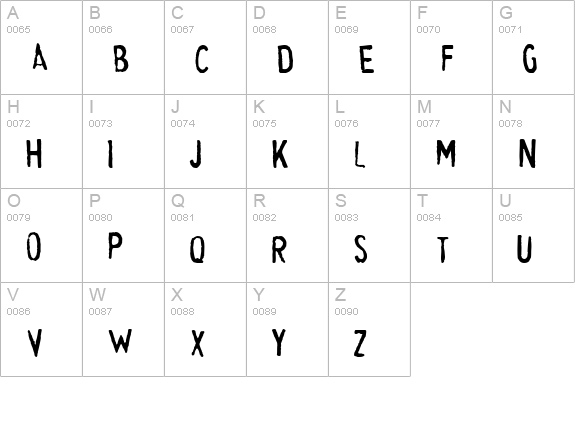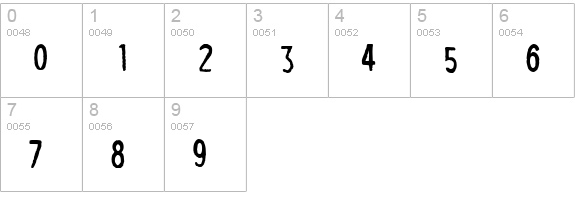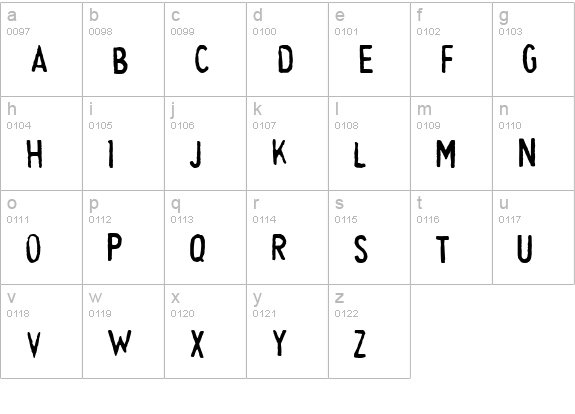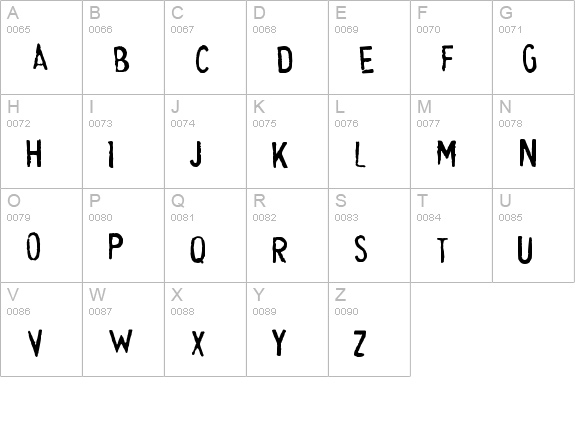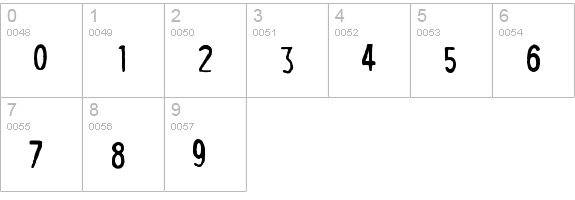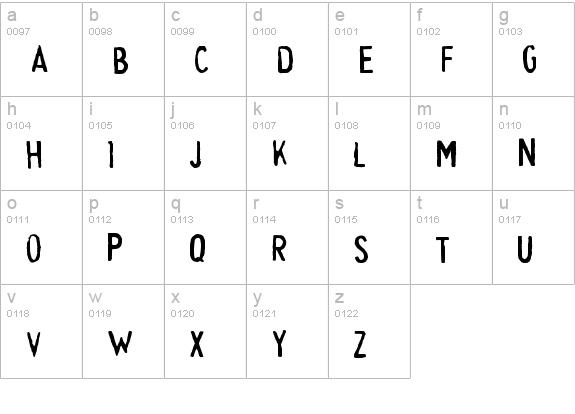
CheapskateFill Font Details
CheapskateFill font embodies the essence of thriftiness and resourcefulness with its unique design. This quirky and playful font is perfect for adding a touch of whimsy to your projects while still keeping costs down. The irregular, hand-drawn appearance of CheapskateFill font gives it a charming and homemade feel, making it ideal for a variety of creative endeavors. Best of all, CheapskateFill font is available for free download at FontsMarket.com, allowing you to access this delightful typeface without breaking the bank. Whether you're working on a DIY project, a personal blog, or a professional design, CheapskateFill font is a versatile choice that won't cost you a penny. Embrace your inner cheapskate and give your designs a fresh and budget-friendly look with CheapskateFill font.